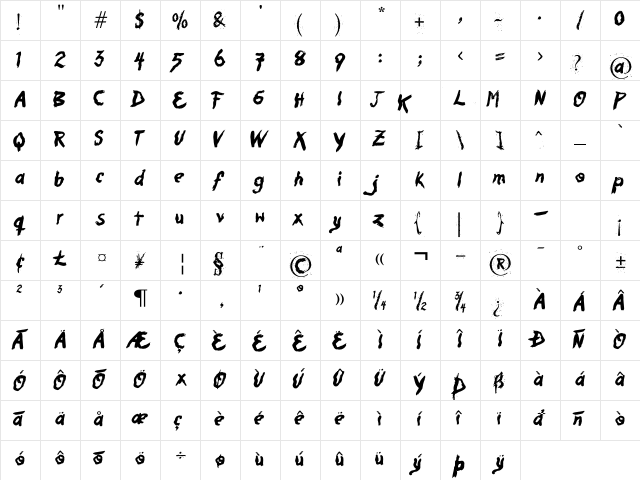
Verde Amaz?nico Regular
Design Context for Verde Amaz?nico Typeface
Verde Amaz?nico is a composed and adaptable typeface that performs quietly and consistently across a wide range of design contexts.